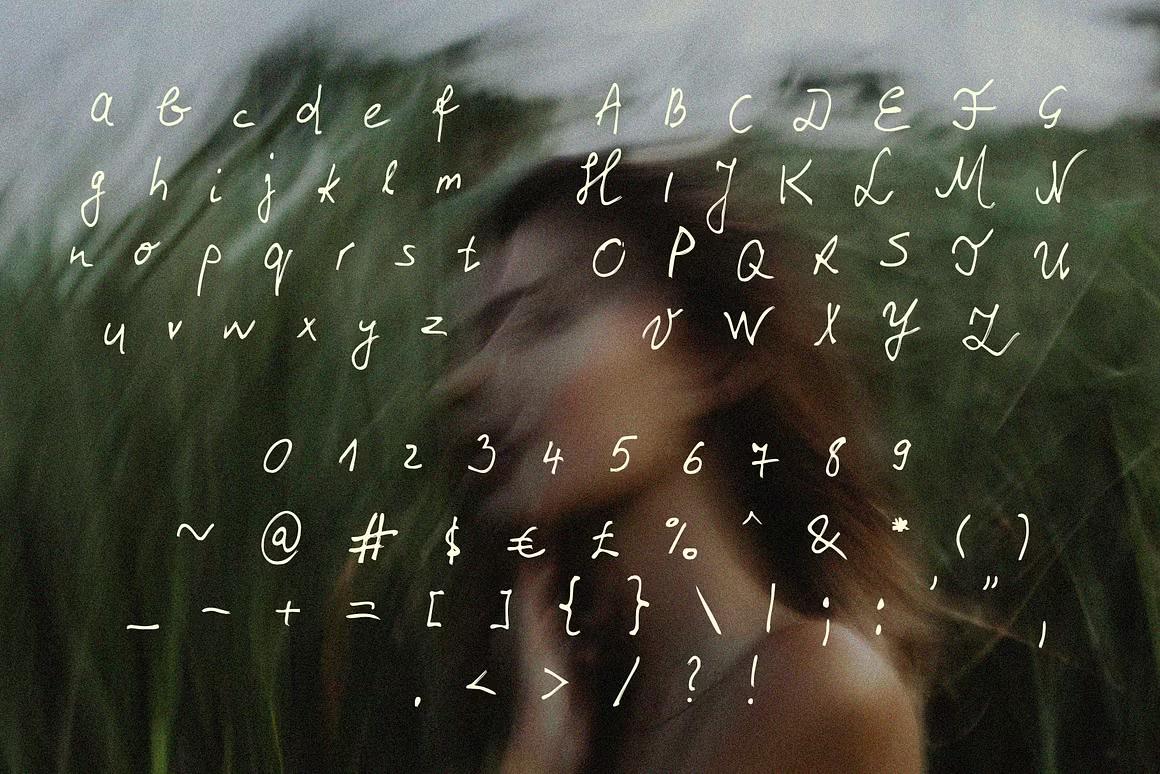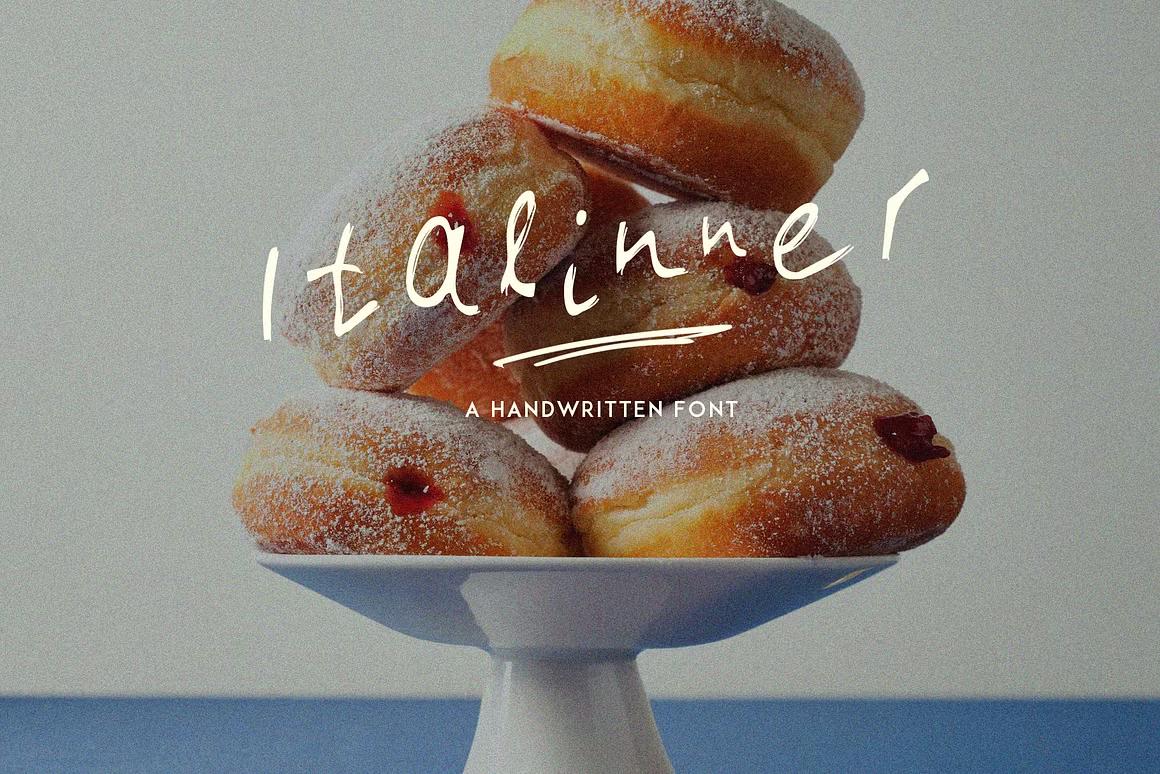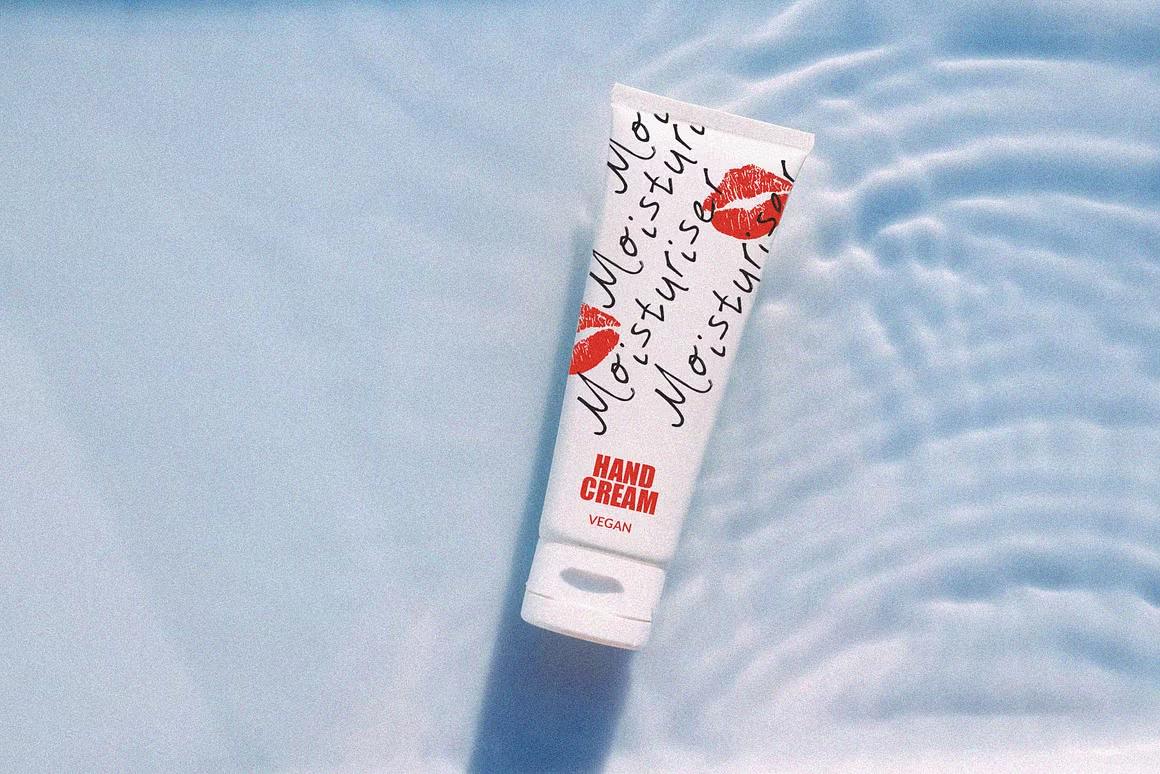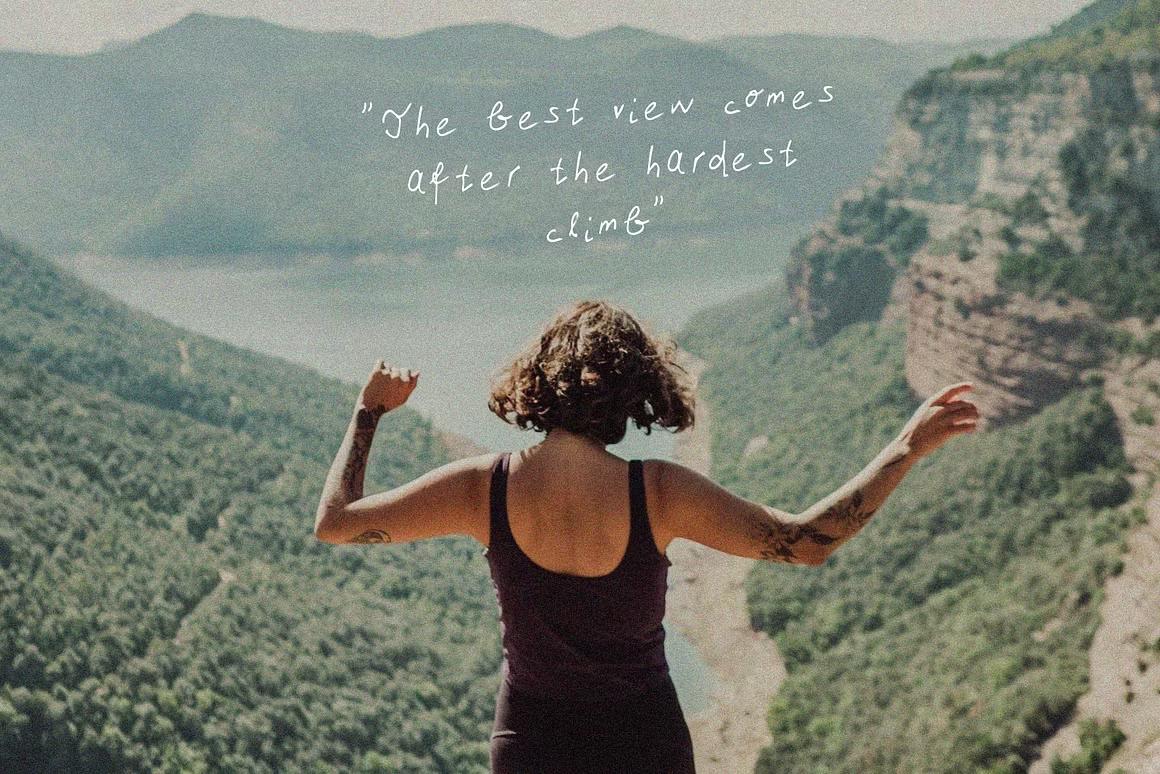
Organic Handwritten Font - Italinner
Italinner is a raw, expressive handwritten trendy font with a naturally rugged charm. Its unrefined letterforms give it an authentic, handcrafted feel, making it great for designing menus that need a warm, artisanal touch. Whether for rustic cafes, organic brands, or creative packaging, this font adds personality and depth.
For a balanced look, pairing this font with classy ones - like refined serifs or modern sans-serifs - creates a beautiful contrast, blending rustic character with sophistication. Italinner brings creativity and authenticity to any design project!